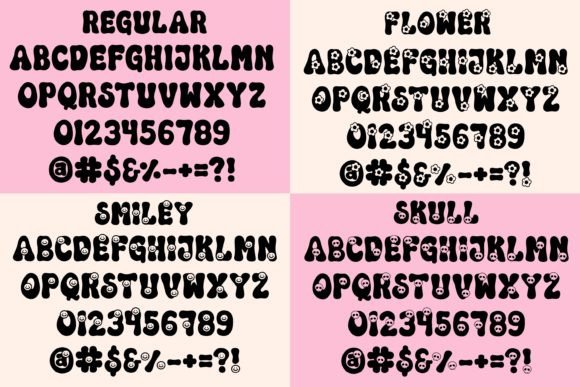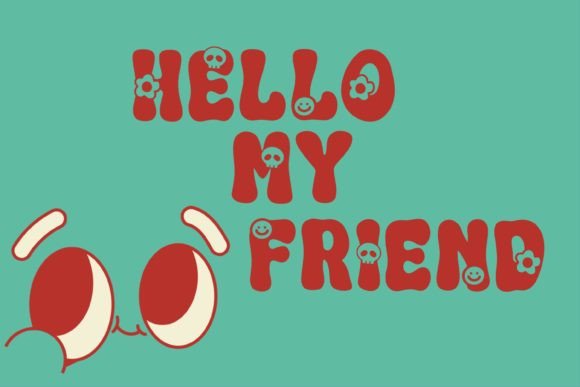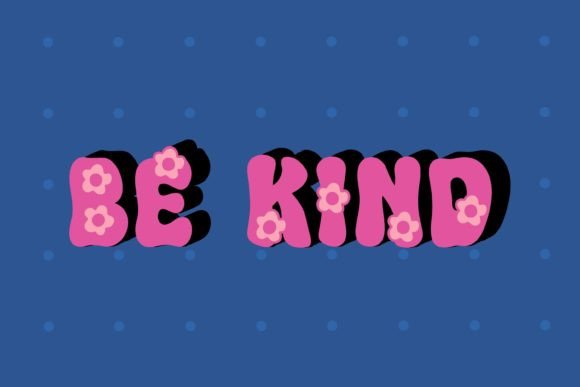
Introduction to Funky Daisy Font
Funky Daisy is a fun, retro-style display font with various decorations.
You can use this font in various projects – blog posts, logos, branding, digital planners, invitations, greeting cards, planners, photo albums, decorations, and much more .